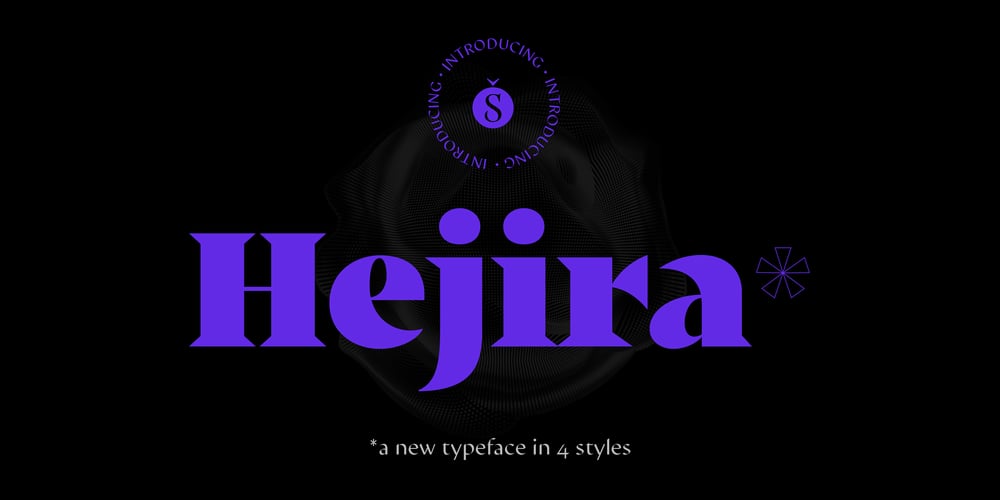
Hejira
Hejira font
Hejira Font Family was designed by Gastón Fuoco and published by Sudtipos. Hejira contains 4 styles and family package options. Hejira means “rupture” and this concept was the primary principle that guided the creation of this typeface: to escape conventions and take up the challenge of designing letters with an unusual and fresh approach. Unlike traditional typefaces, each member of this somewhat atypical family has its own distinct personality and formal features. A thin, spiky font that looks like its sharp serifs could pierce through. A more experimental sibling, based on the same skeleton but taken to the extreme, that is best suited to setting big titles. An odd-one-out, sans-serif style whose shapes mimic those generated by the movement of a calligraphic pen. And a quirky fat-face with a flair for combining round curves with pointy elements. Regardless of how different they may be, all four styles feel part of the same system and can be used alongside each other seamlessly. The Hejira set includes multiple ligatures and supports a wide variety of Latin alphabet-based languages.